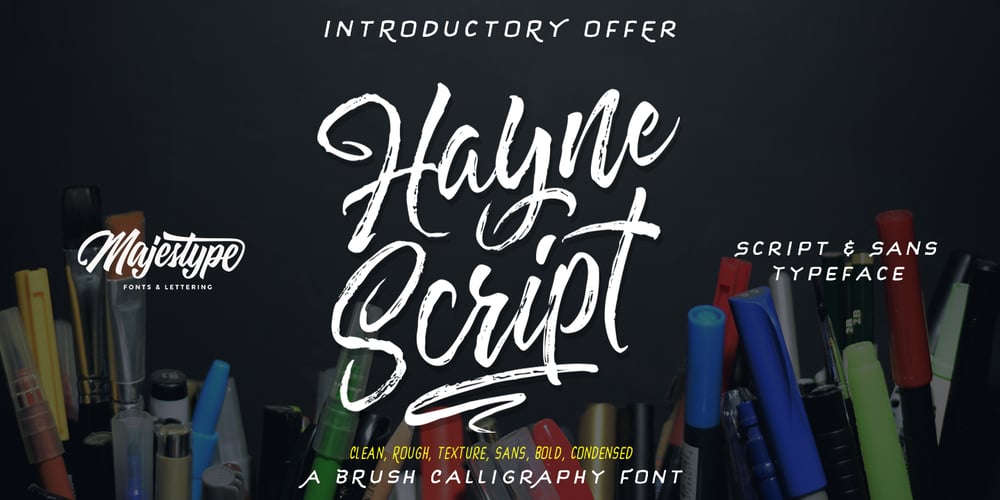
Hayne Script
Hayne Script font
Hayne Script Font Family was designed by Dexsar Harry Anugrah and published by Majestype. Hayne Script contains 6 styles and family package options. Hayne Script + Sans were made with a brushpen and regular pen. It comes with a lot Glyph, 3 style for Script, international languages for Script and Standard Glyph for Sans Version, it can be a new great weapon for your next project. We deliberately made the dying effect in this font to make it look natural and as a handwriting would be. Also, we create the clean version to make this font suitable for headline. Support OpenType features, that can allow you to choose a character that you like and suitable for the project you’re working on. If you want to access all character, you need software that support OpenType Feature like Illustrator, Photoshop, Indesign & CorelDraw. Hayne Script & Sans is suitable for tshirt design, photography, invitation, ID card, tattoo, poster, logo, title, branding and etc. Tips : This font will looks nice when work together, script & sans 🙂